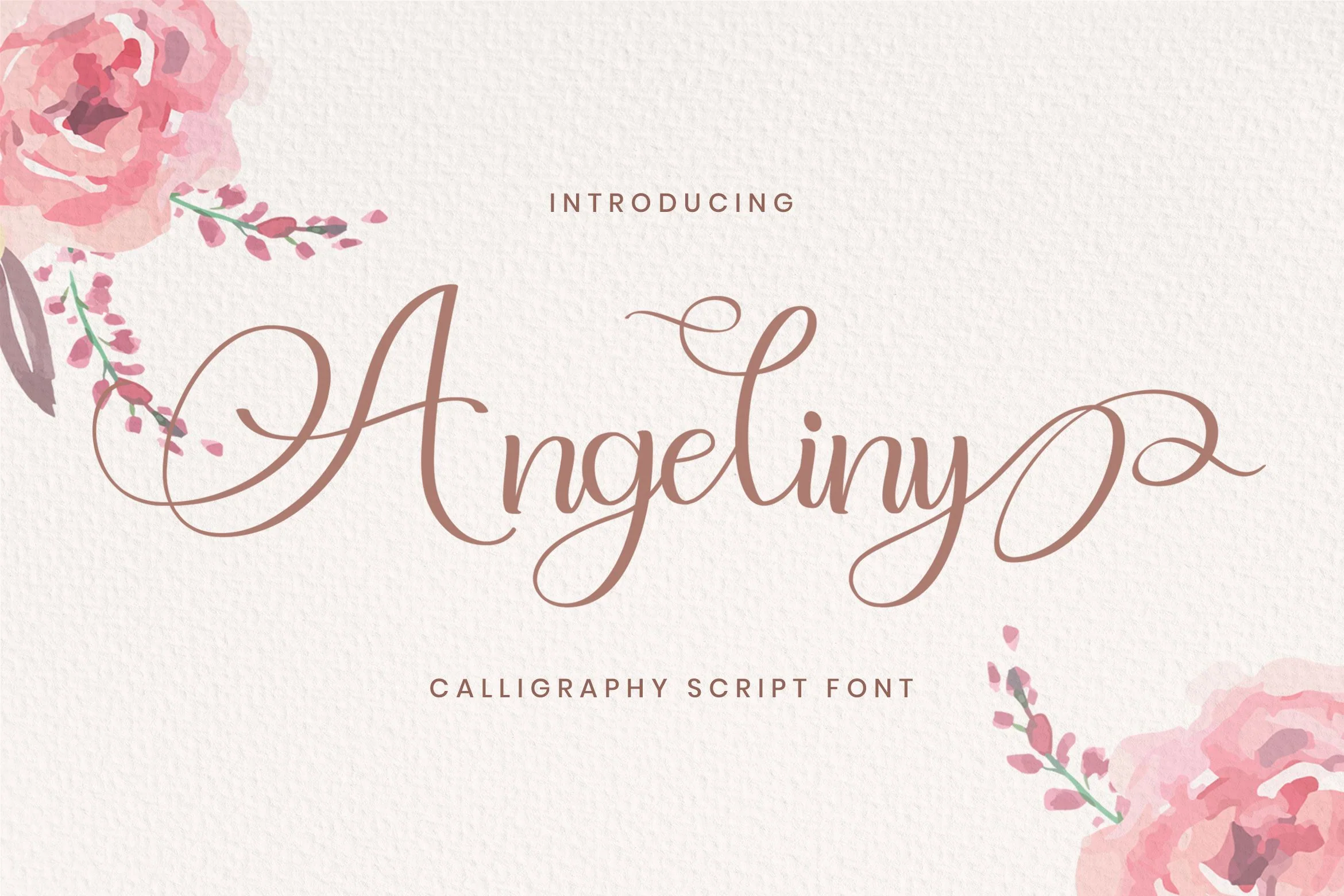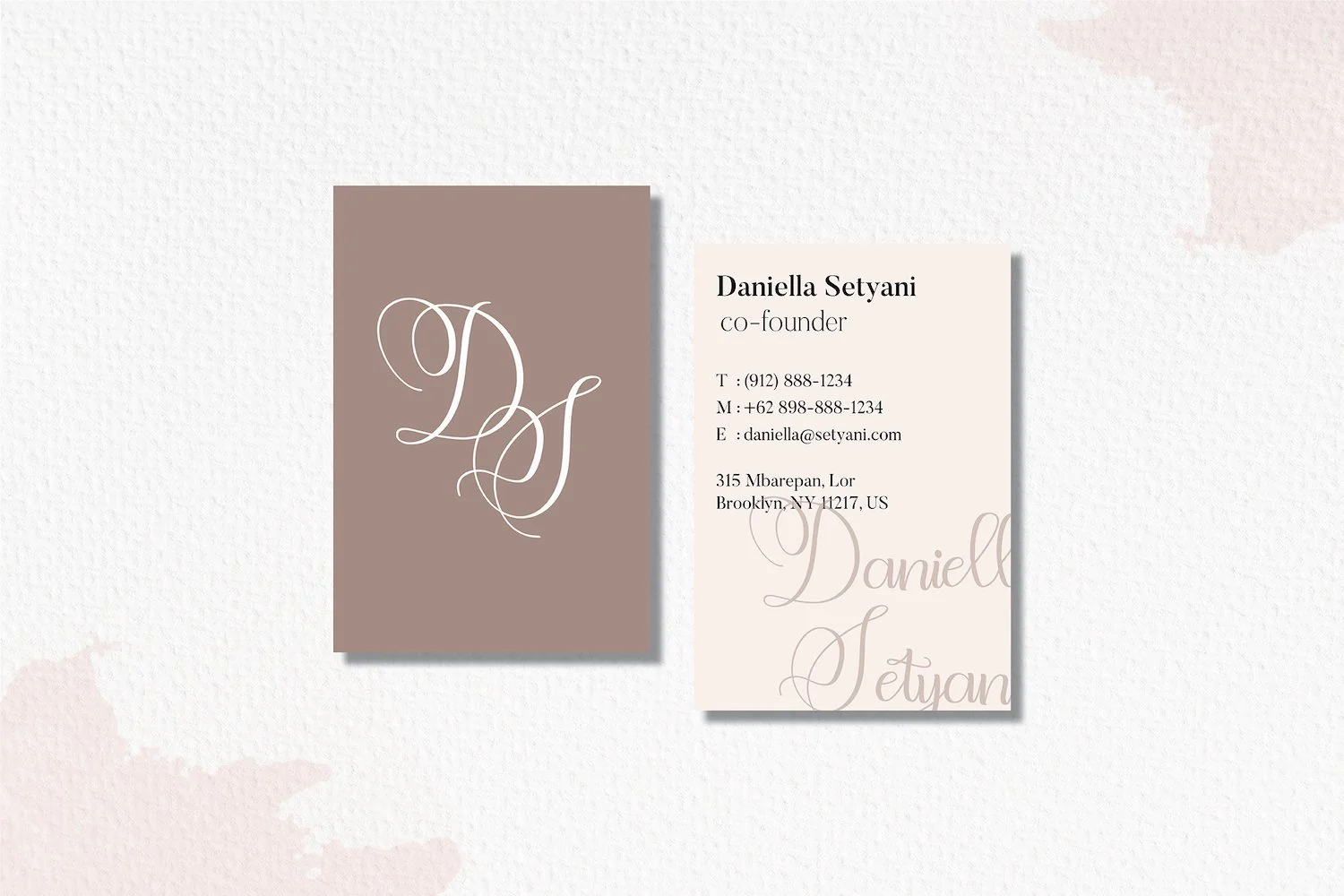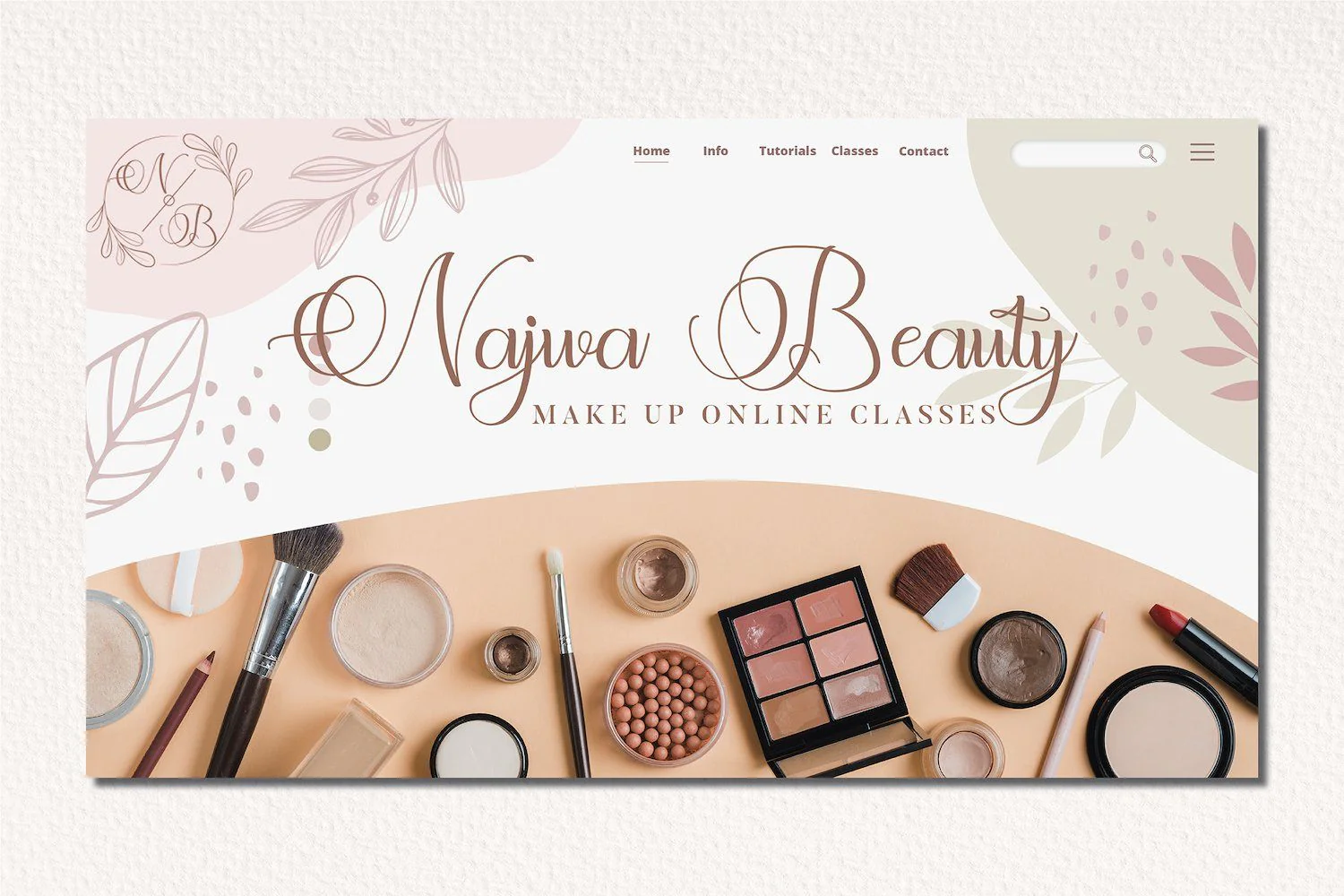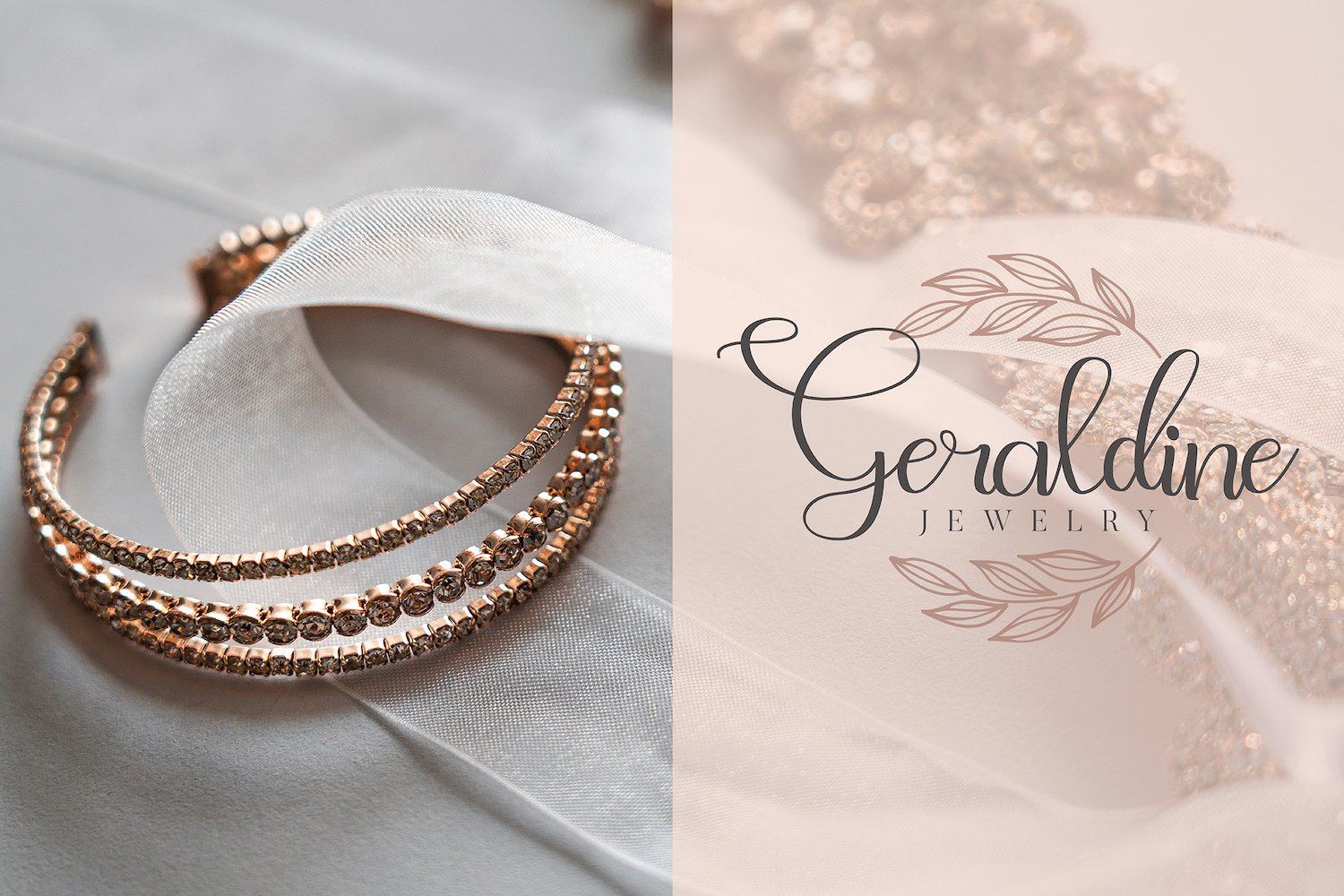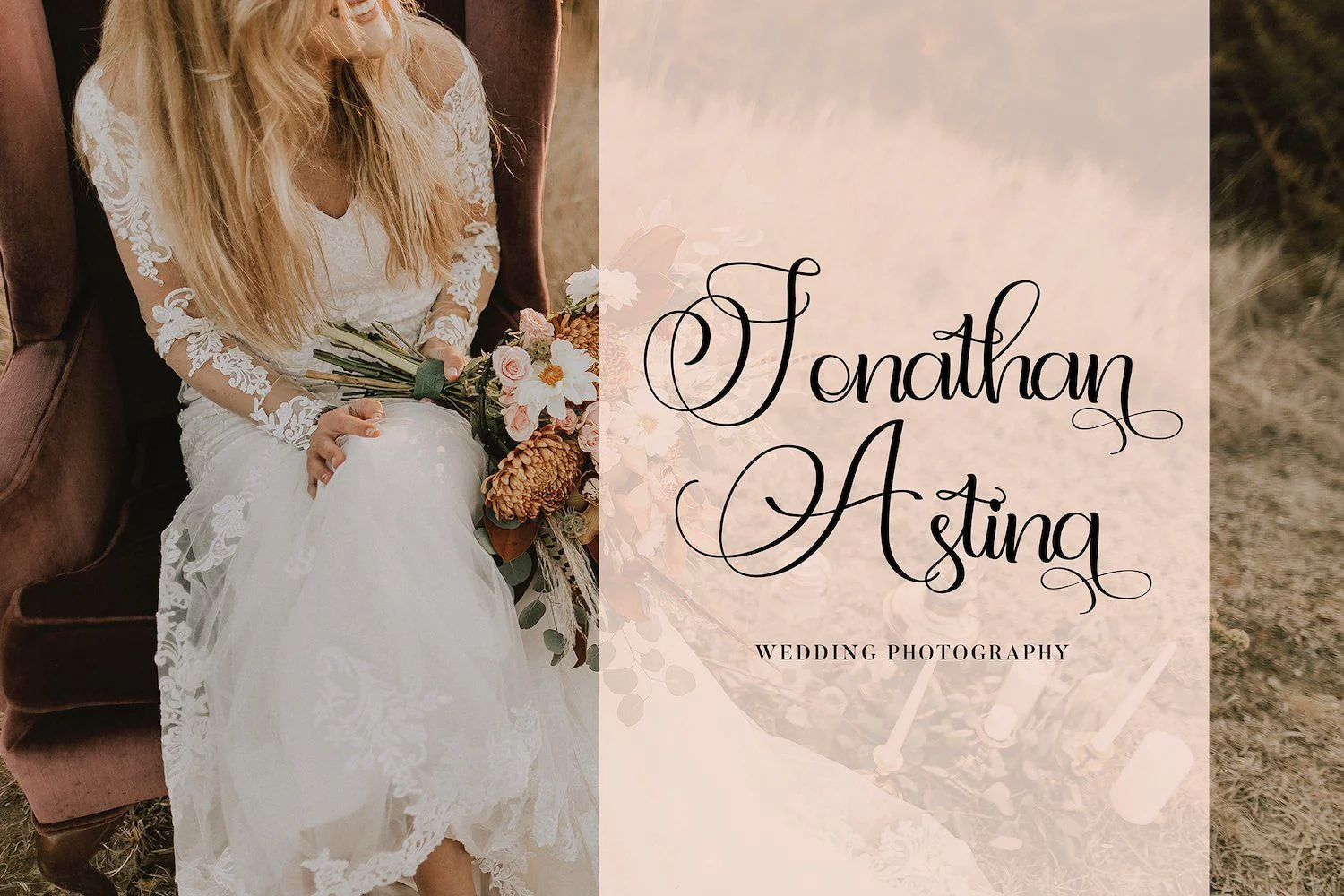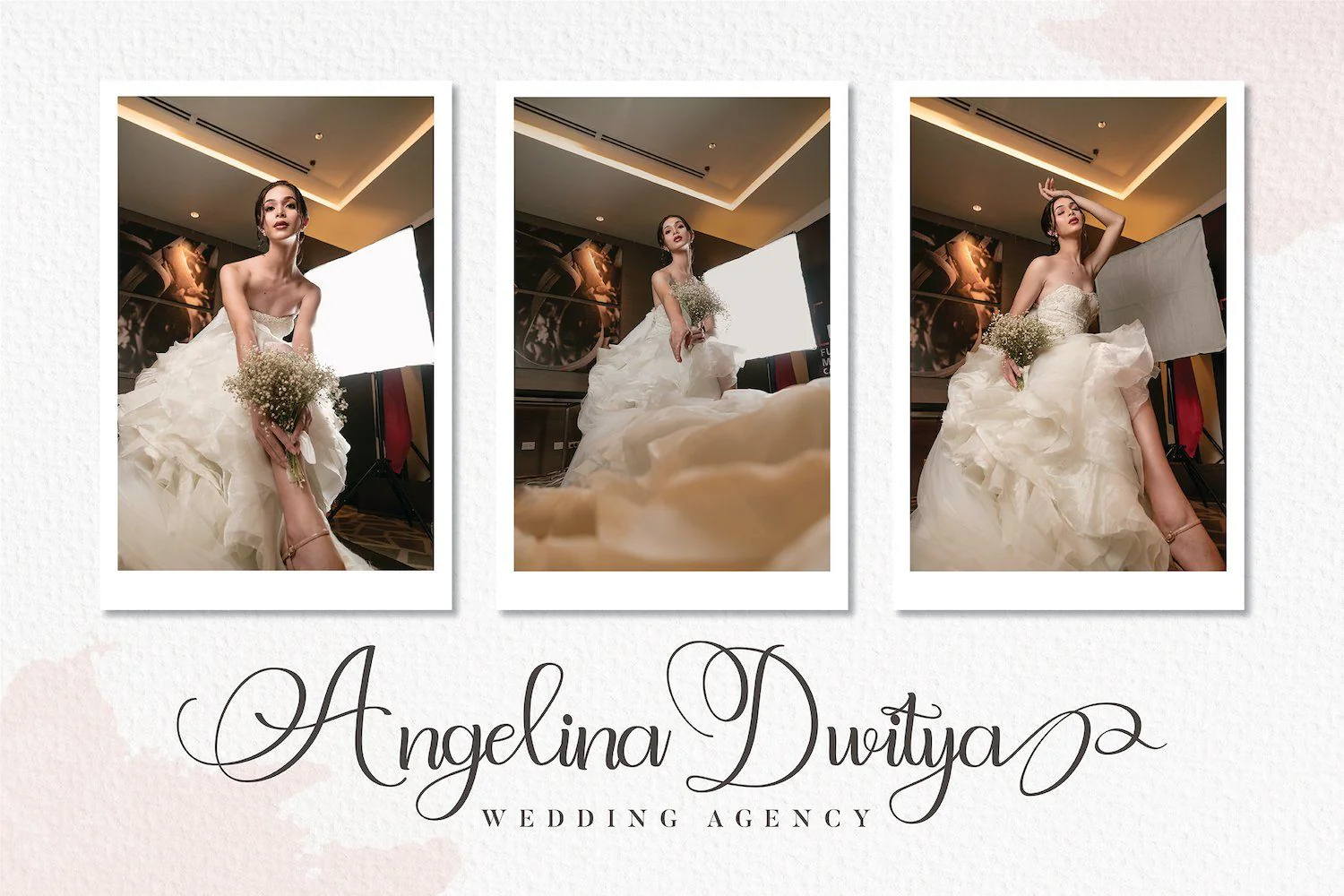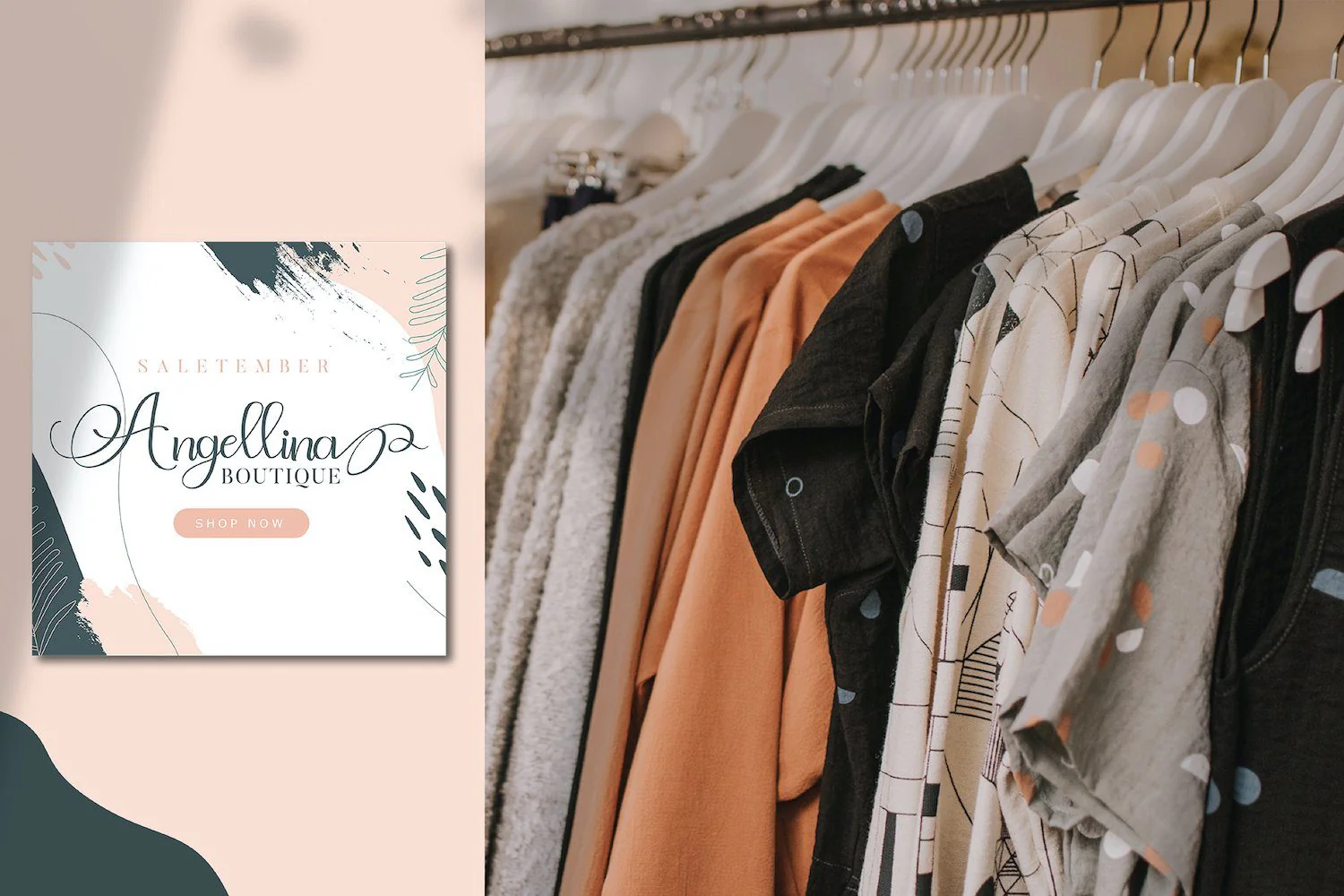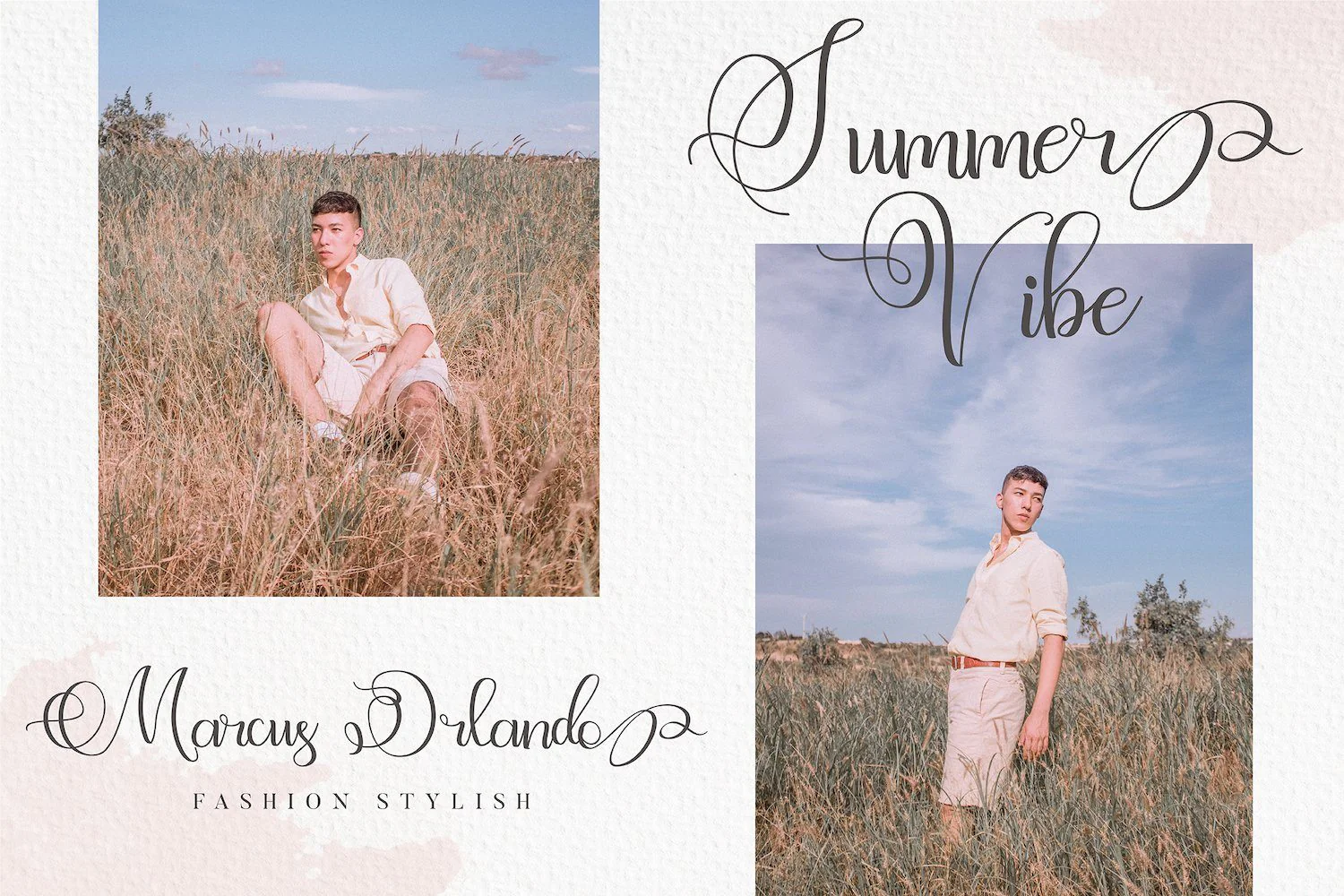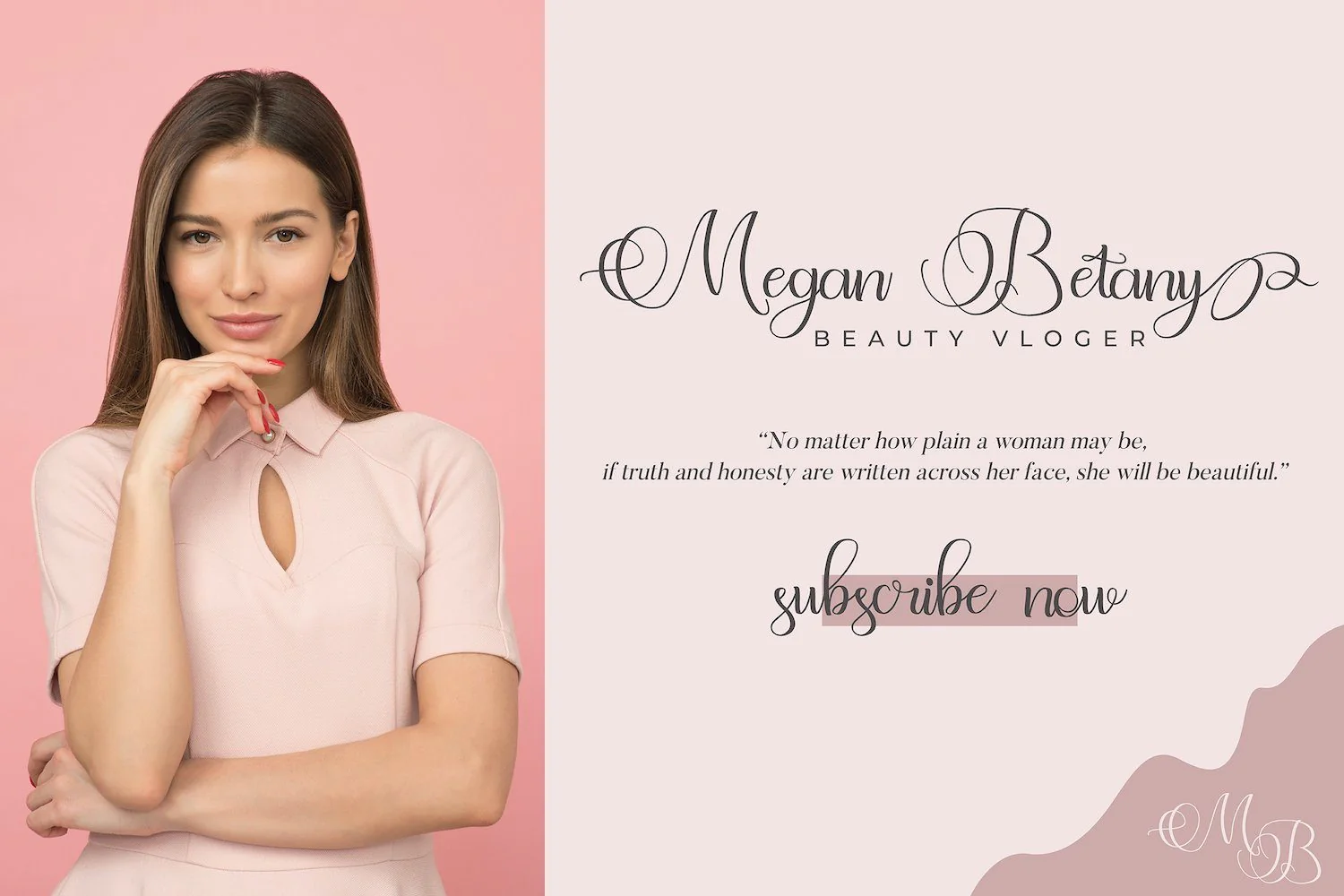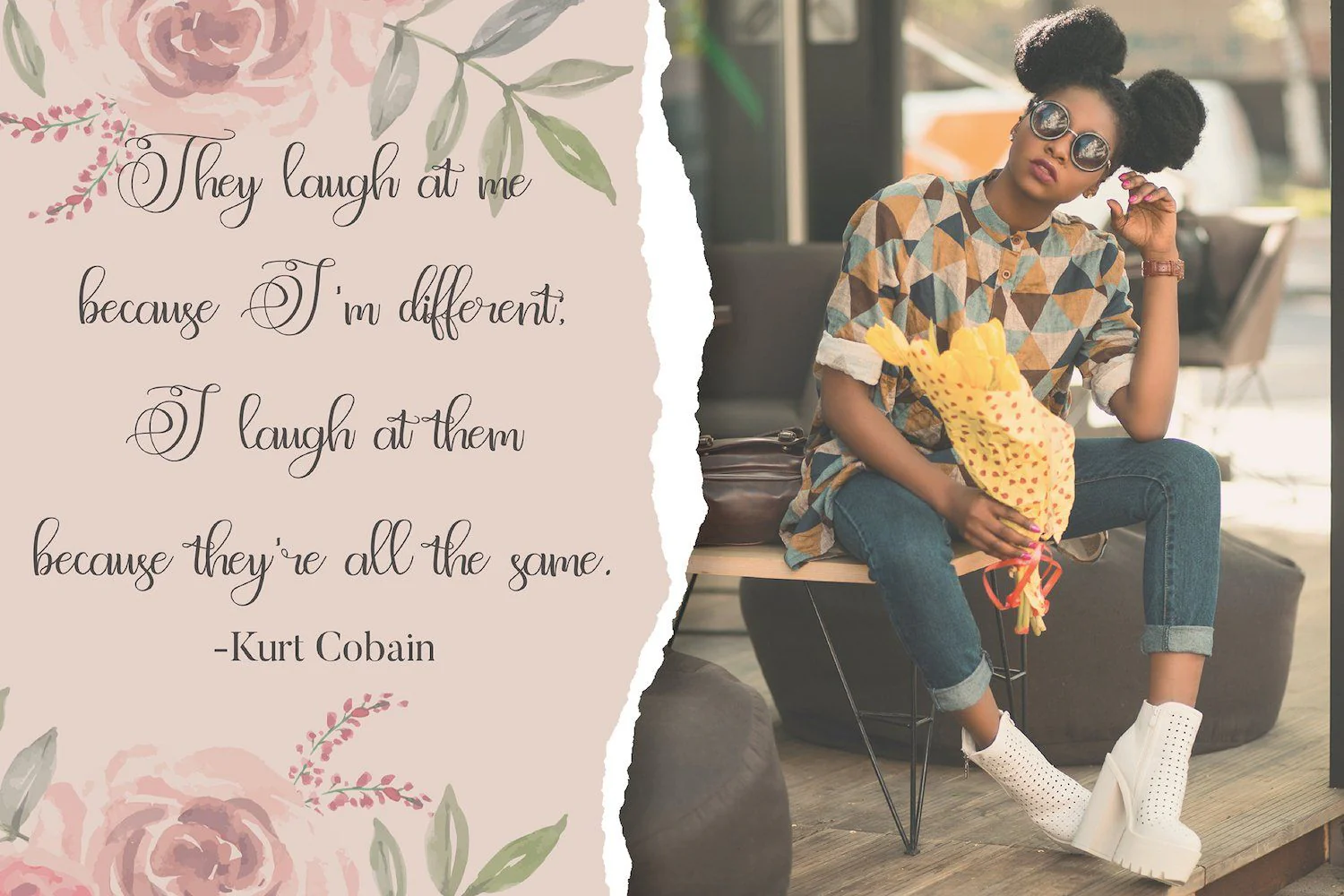
Angeliny - Calligraphy Font
Introducing Angeliny - Calligraphy Font
Angeliny is a delicate and elegant handwritten font. Its distinct and well rounded letters make this font a masterpiece. Fall in love with its incredibly versatile style and use it to create spectacular designs!